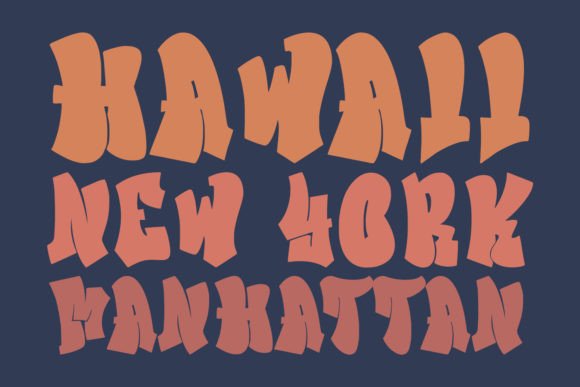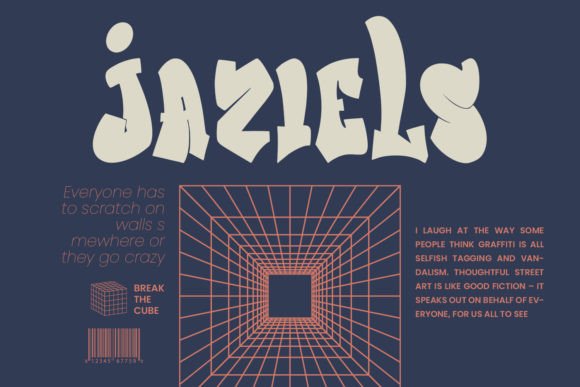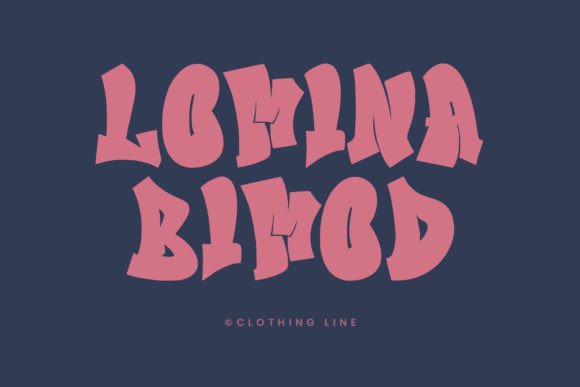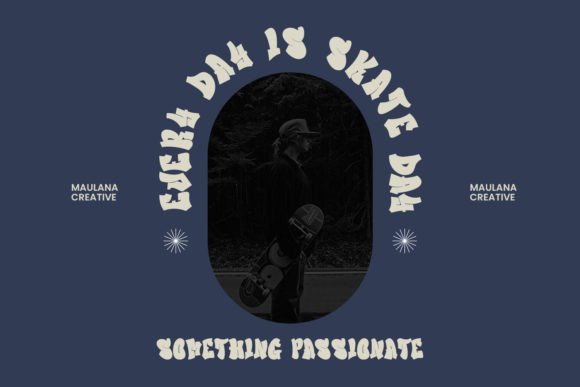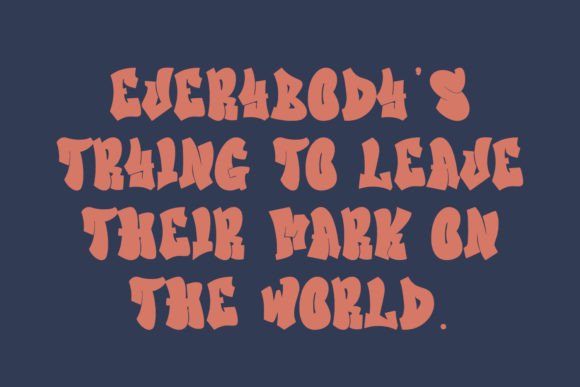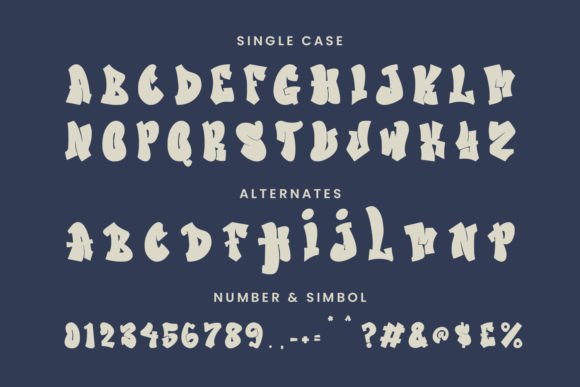
Unlocking Urban Creativity: The Power of Humpz Wost Font
You know that moment when you stumble upon a street art mural that makes you pause and take a second look? The vibrant colors, the bold strokes, and the rebellious spirit that radiates from it – it’s like a spark of creativity has been ignited within you. As a designer, you’re constantly seeking inspiration to elevate your work and push the boundaries of what’s possible. That’s where Humpz Wost Font comes in – a dynamic and expressive typeface that captures the essence of urban art.
This edgy font is more than just a design tool; it’s a statement piece that embodies the creative energy of the streets. With its bold strokes and intricate designs, Humpz Wost Font is the perfect addition to any designer’s toolkit. Whether you’re working on a branding project or a graphic novel, this font will give your work a unique and eye-catching twist. By incorporating Humpz Wost Font into your designs, you’ll be tapping into the raw creativity and rebellious spirit of street art.
- Unique Character Set: This font features a unique character set that includes a wide range of special characters, ligatures, and swashes, making it ideal for creative and artistic applications.
Humpz Wost Font Review
I’ve had the chance to work with “Humpz Wost Font” and I have to say, it’s an interesting choice. ✨ One thing that works well is its unique aesthetic. The font’s irregularities give it a quirky feel that can be perfect for projects that need a bit of personality. It’s also quite versatile and can be used for a variety of applications, from headlines to body text.
Another advantage of “Humpz Wost Font” is its wide range of weights and styles, making it easy to find the perfect combination to suit your design needs.
However, there are some limitations to consider. ⚠️ One major issue is the font’s readability, especially at smaller sizes. The irregularities that make it unique can also make it difficult to read, especially for users with visual impairments. Additionally, the font may not be suitable for projects that require a more traditional or formal look.
Overall, I’d say “Humpz Wost Font” is a great choice for projects that need a bit of personality and flair. While it may not be suitable for every project, it’s definitely worth considering for designs that require a unique touch.
Design Considerations
- Use “Humpz Wost Font” for projects that need a unique and quirky feel.
- Choose the right weight and style to ensure readability.
- Consider the audience and adjust the font size and style accordingly.
- Avoid using “Humpz Wost Font” for projects that require a traditional or formal look.
For best results, use Humpz Wost Font for titles and headings. It’s also great for creating a unique and playful look for logos, social media graphics, and other visual content.
Alternatives to “Humpz Wost Font”
Alternative 1: Bangers Font
Bangers Font is a sans-serif font with bold, rounded edges. It’s perfect for use in headings and titles where you want to grab the user’s attention. Bangers Font is similar to Humpz Wost Font in its bold and playful nature, but it has a more modern and clean look.
Alternative 2: Great Vibes Font
Great Vibes Font is a script font with a fun and casual vibe. It’s great for use in quotes, captions, and other text where you want to add a touch of personality. Great Vibes Font is different from Humpz Wost Font in its script style, but it still has a similar playful and carefree feel.
Q: Can I use Humpz Wost Font in digital signage or large-scale displays?
Yes, Humpz Wost Font is suitable for digital signage and large-scale displays. However, please note that the font’s legibility may be affected by the display resolution and screen size. It’s recommended to test the font in different resolutions and screen sizes to ensure optimal readability.